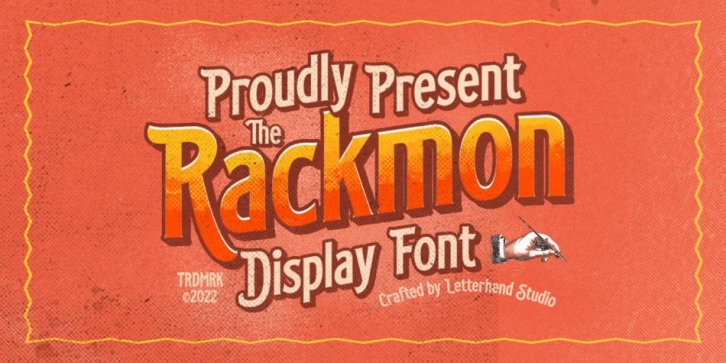
Publisher: Letterhend Studio
Designed by Hendry Juanda, Rackmon is a sans serif font family published by Letterhend Studio.
Rackmon is a vintage display typeface with the touch of nostalgic feel. The bold looks make this font standout to be used as a title or a logo. This font perfectly made to be applied especially in logo, and the other various formal forms such as invitations, labels, magazines, books, greeting / wedding cards, packaging, fashion, make up, stationery, novels, labels or any type of advertising purpose.
- Uppercase and Lowercase
- Numbers and punctuation
- Stylistic alternates
- multilingual